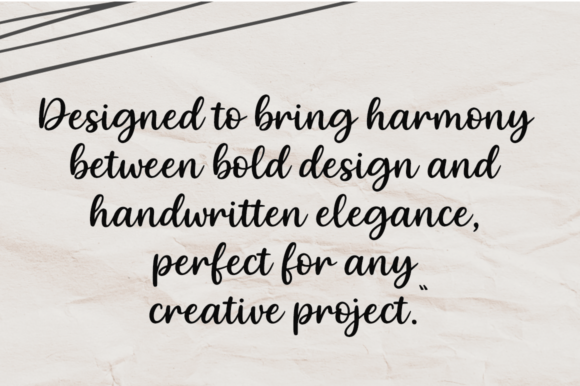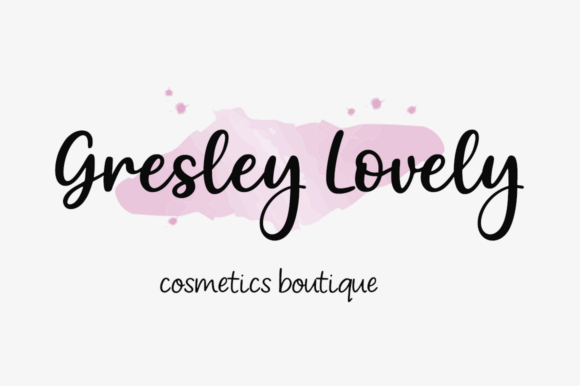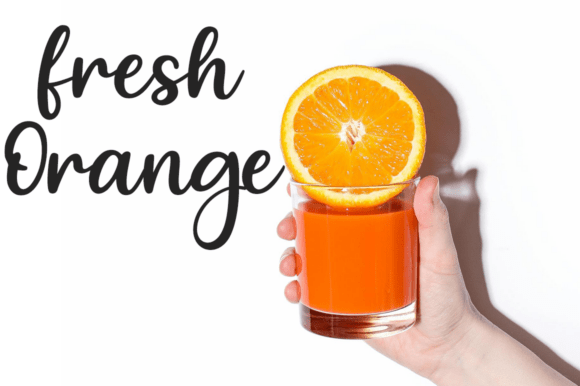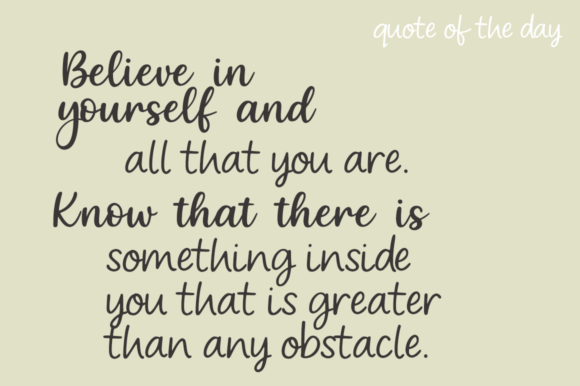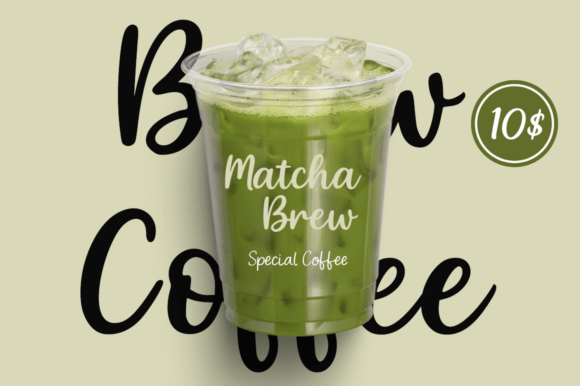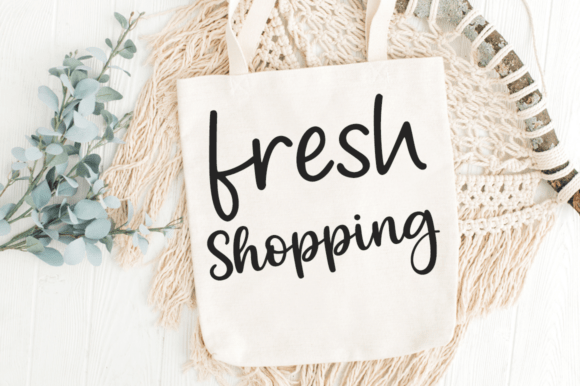
Introduction to Gresley Font
As a designer, there’s nothing quite like the thrill of discovering a new font that perfectly captures the essence of your creative project. For me, that moment came when I stumbled upon the Gresley Font, a stunning duo of robust sans and smooth handwritten script that has been a game-changer in my design endeavors.
The Gresley Font is more than just a pretty face; it’s a high-quality design resource that offers a unique blend of vigor and refinement. With its crystal-clear precision and structuring ideal for titles and headlines, the sans font is a must-have for any serious designer. Meanwhile, the script variant adds a touch of elegance and sophistication, making it perfect for adding a personal touch to your creative projects.
Key Features of Gresley Font
- High-quality, professional design suitable for creative projects
- Includes a range of characters, including uppercase and lowercase letters, numbers, and punctuation
Honest Review: Gresley Font
- What works well: ✨ The Gresley Font has a unique, elegant design that sets it apart from other fonts. It’s perfect for creating a sophisticated and modern look in any design project.
- What works well: ✨ The font is also available with a transparent background, making it easy to customize and integrate into any design.
However, I do have a few limitations to note. ⚠️ The font may not be suitable for projects that require a bold, attention-grabbing font, as it’s more of a subtle and elegant design. Additionally, the font may not be compatible with all operating systems or software.
Overall, I’m really impressed with the Gresley Font. It’s a great addition to any design resource library, and I can see it being used in a variety of creative projects. Whether you’re a seasoned designer or just starting out, the Gresley Font is definitely worth checking out.
Getting the Most Out of Gresley Font
To get the most out of the Gresley Font, use it in conjunction with other high-quality design resources, such as graphics and images. Experiment with different font sizes, colors, and combinations to create unique and eye-catching designs. The font’s transparent background also allows for seamless integration with other design elements.
The Gresley Font is ideal for a variety of creative projects, including logos, branding materials, and marketing materials. Its high quality and versatility make it an excellent choice for use in presentations, documents, and web design. The font’s transparent background also makes it suitable for use on a variety of backgrounds, from simple to